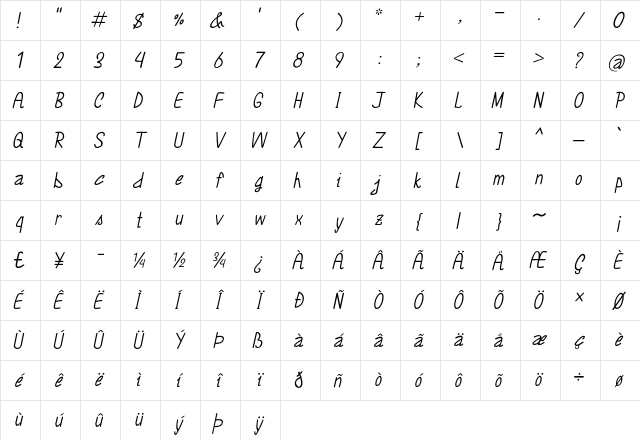
Complete Annarvin Italic glyph index. Displaying only characters natively supported by Annarvin Italic font.
Annarvin is a composed and adaptable typeface that performs quietly and consistently across a wide range of design contexts. The slanted form adds forward momentum and visual energy.
Pro Tip: Use Annarvin for emphasis, pull quotes, and subheadings where its slanted energy can add rhythm to the layout.